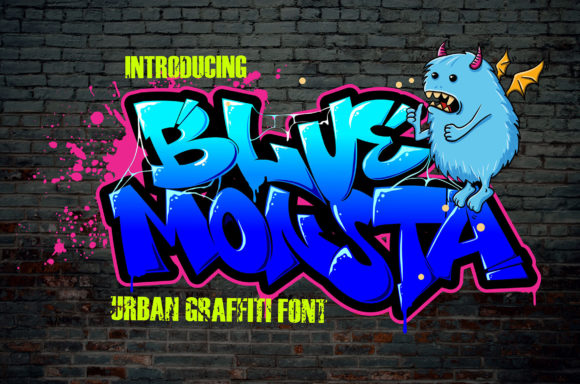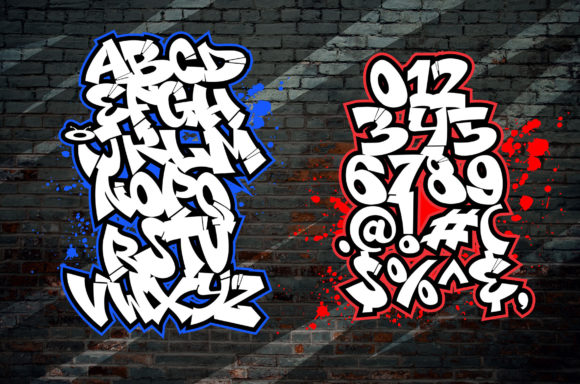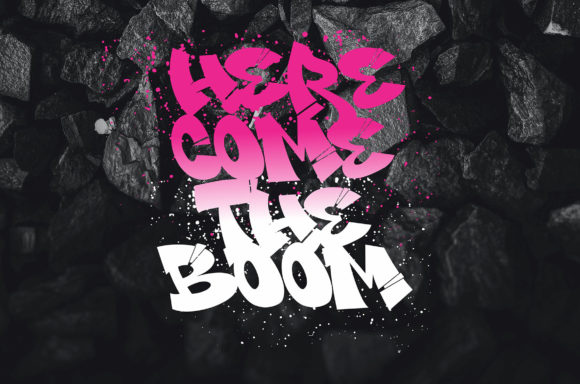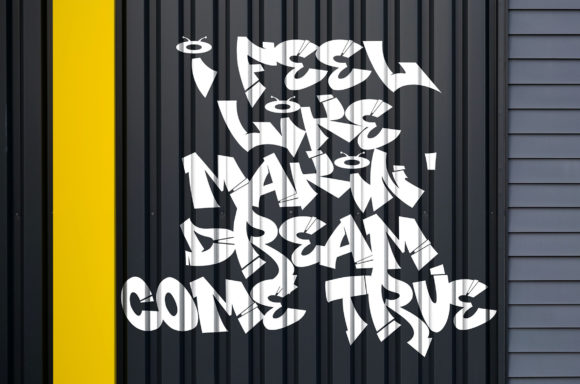
Blue Monsta Font: Bold Graffiti Display Font for Creative Designs
About the Blue Monsta Font
Unleash your creativity with Blue Monsta Font, a versatile font perfect for a wide range of applications. Blue Monsta is a spectacular display font with a graffiti style. It will elevate a wide range of design projects to the highest level, be it branding, headings, wedding designs, invitations, signatures, logotype, wall art illustration, apparel, labels, and much more!
Blue Monsta excels as a headline font for projects needing a bold, rebellious statement. It’s ideal for branding targeting a youthful, urban, or street-art-inspired audience; think streetwear apparel, music posters, or edgy product packaging. Avoid using it for body text or lengthy paragraphs; its strong character overwhelms readability in smaller sizes or extended use.
Pairing Blue Monsta effectively requires a contrasting typeface to balance its energy. A clean sans-serif like Montserrat or a geometric sans-serif such as Futura would provide a strong contrast and enhance readability. For a softer counterpoint, consider a simple serif like Lora.
The font’s core personality is undeniably bold and rebellious. Its graffiti-inspired forms convey a sense of raw energy and urban grit.
Blue Monsta Font Usage Examples
Blue Monsta Font Example